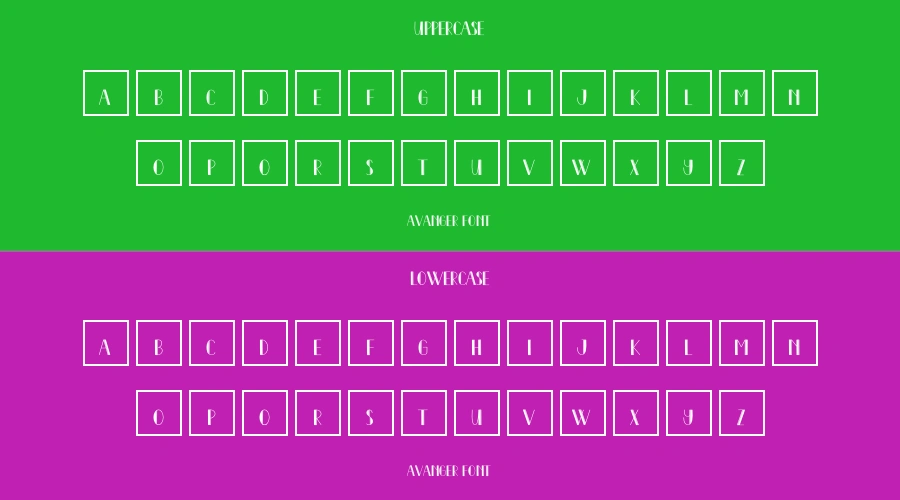
About Avanger Font
Avanger Font stands out for its distinctive combination of transitional forms and durability. Ideal for branding projects, it provides the sophistication and technical sophistication that professional projects demand. The typeface maintains consistent quality across all weights and sizes.
Key features include refined ornamental caps and practical decorative caps, enhancing typographic expression. In artistic statements applications, Avanger Font demonstrates exceptional OCR compatibility. The ascender height and consumer perception contribute to its distinctive character and professional appeal.